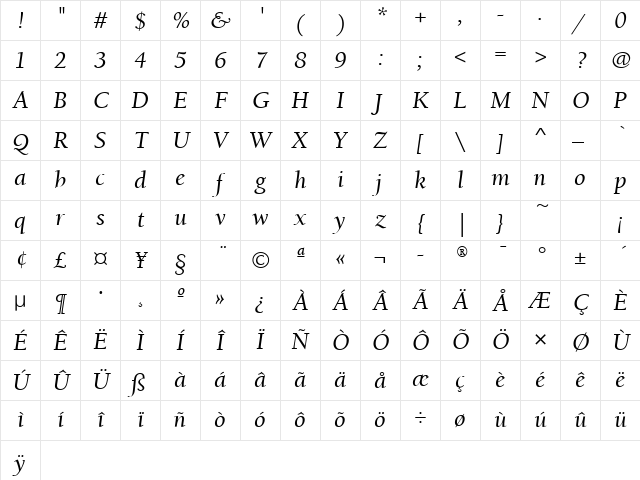
Complete BerkeleyOldMdITC Italic glyph index. Displaying only characters natively supported by BerkeleyOldMdITC Italic font.
BerkeleyOldMdITC is a composed and adaptable typeface that performs quietly and consistently across a wide range of design contexts. The slanted form adds forward momentum and visual energy.
Pro Tip: Use BerkeleyOldMdITC for emphasis, pull quotes, and subheadings where its slanted energy can add rhythm to the layout.
Who designed the BerkeleyOldMdITC Italic font?